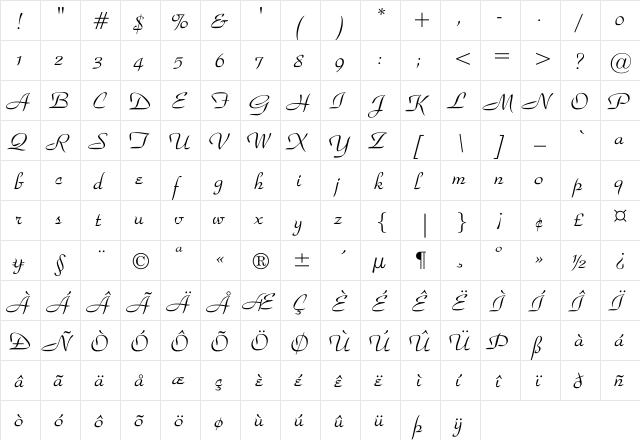
SnootyfaceBT-Regular Regular
Design Context for SnootyfaceBT-Regular Typeface
SnootyfaceBT-Regular is a composed and adaptable typeface that performs quietly and consistently across a wide range of design contexts.